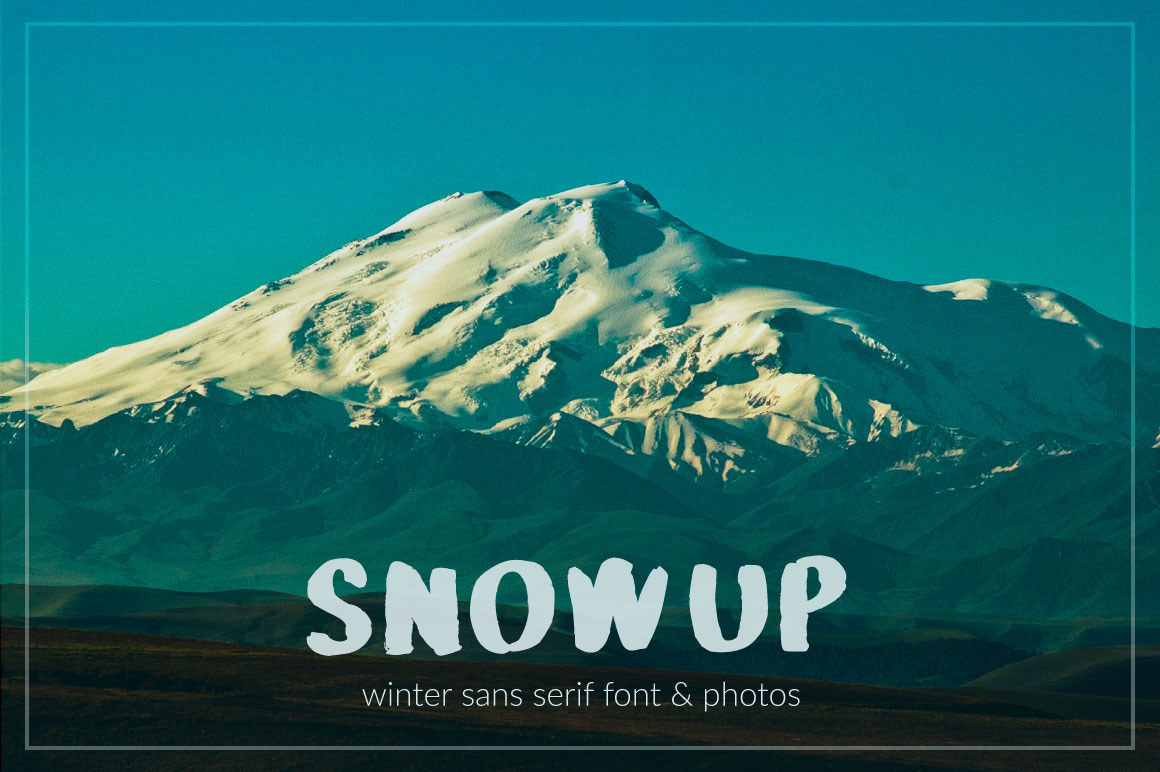
SnowUP Brush Font
This font is for those who truly love winter, waiting for powdery snow, crystal snowflakes and pre-Christmas mood.
Font: ZeppelinUP is a brush sans serif font, which is inspired by the spirit of coming winter. Air, soft and round - as if woven of dreams - this font is perfect for decoration and typography.